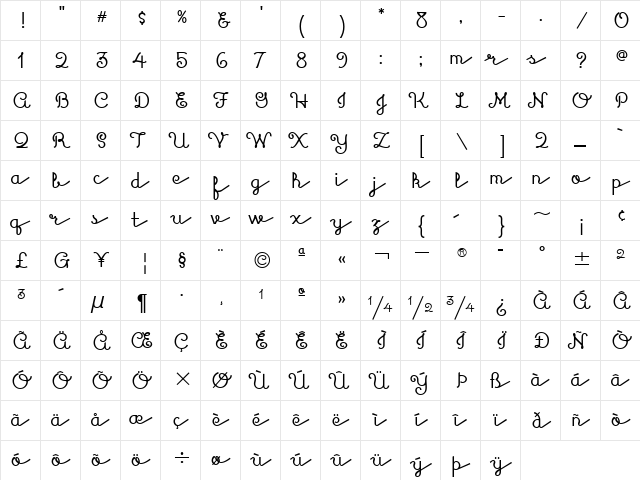
KulukundisITC TT Regular
Design Context for KulukundisITC TT Typeface
KulukundisITC TT is a composed and adaptable typeface that performs quietly and consistently across a wide range of design contexts.